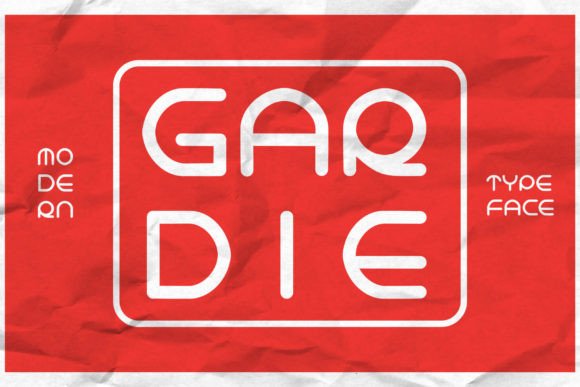
Prepare to be mesmerized by Gardie Font, a captivating display font that exudes a playful and distinctive charm. Crafted by AP, this typographic masterpiece is a testament to the power of creativity, fusing whimsical aesthetics with unparalleled functionality.
Immerse yourself in a world where every word dances with a captivating rhythm and unfolds with a vibrant personality. Gardie Font is the perfect companion for those seeking to make a statement, whether crafting eye-catching headlines, designing logos that leave a lasting impression, or creating social media posts that ignite engagement.
Step into a realm of limitless possibilities, where Gardie Font transforms your words into works of art. Its versatility knows no bounds, effortlessly adapting to a myriad of design styles and purposes. Unleash your imagination and watch as your creations blossom with a unique and unforgettable flair.
With Gardie Font, the ordinary becomes extraordinary, and the mundane transforms into the magnificent. Its quirky and fun nature brings a touch of whimsy to any project, inviting smiles and sparking joy in the hearts of your audience.
More than just a font, Gardie Font is a gateway to a world of self-expression and creativity. Let your imagination soar as you craft designs that resonate with your unique style and vision. Join the ranks of those who have discovered the magic of Gardie Font, and witness your creations take flight with an irresistible charm that captivates and inspires.